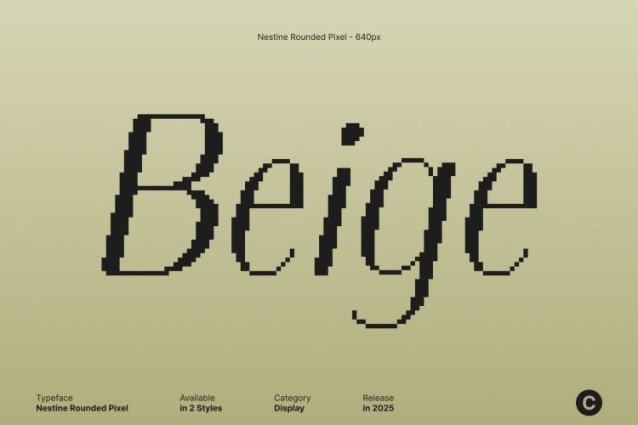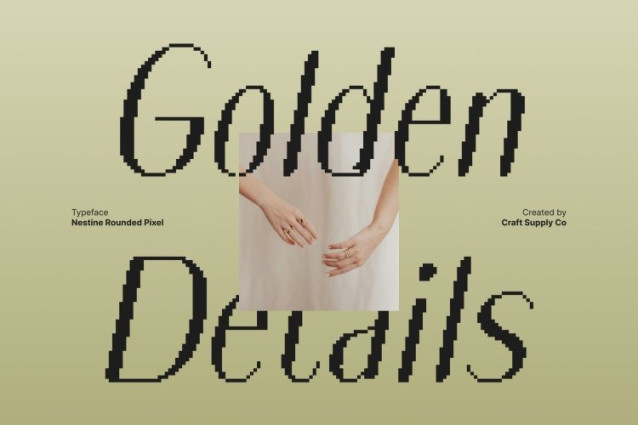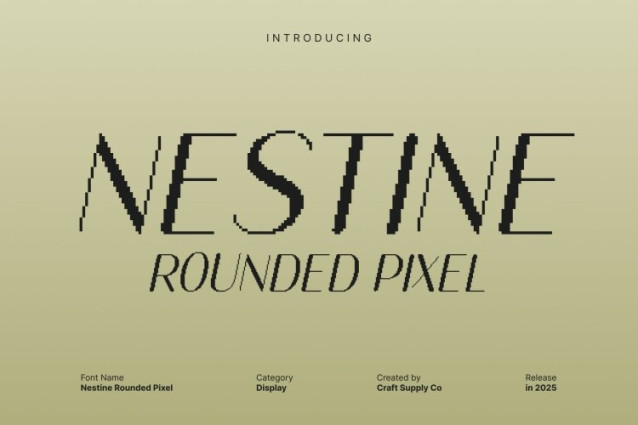
Nestine Rounded Pixel Font This is a modern sans serif display font designed with clean, precise lines that convey professionalism and timeless elegance. Its balanced letterforms create a polished and refined appearance, making it perfect for contemporary designs that require clarity, style, and sophistication.
Rounded Terminals for Approachability and Softness
The rounded edges of this font add a friendly, approachable touch to its sleek structure. This subtle softness enhances readability and visual appeal, giving the font versatility for a wide range of applications, from branding and editorial layouts to posters and product packaging.
Pixel Style for Digital Depth and Character
Enhanced with a pixel-inspired style, this font gains a modern digital edge. The pixel detailing adds depth, personality, and a tech-forward aesthetic, making it ideal for projects that want to convey creativity, digital artistry, and contemporary design innovation.
Perfect for Branding, Posters, and Editorial Layouts
This font excels in designs that blend classic modernity with digital flair. Use it for branding, posters, editorial projects, or social media campaigns where sophistication and personality are essential. Its clean lines, rounded shapes, and pixel-inspired details make it a versatile choice for designers seeking a professional, polished, and digitally expressive font.